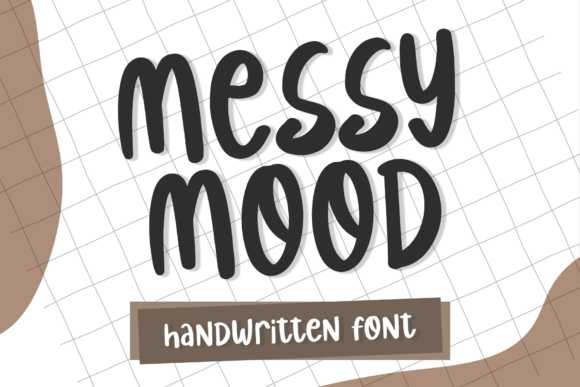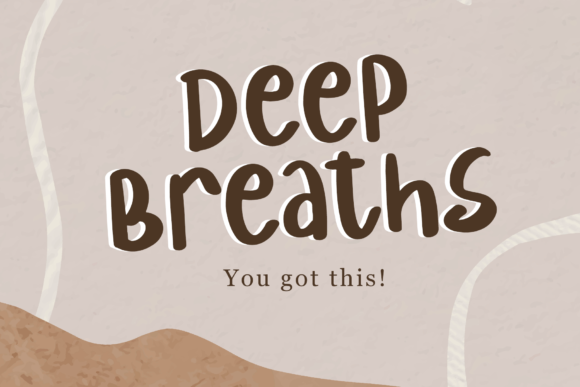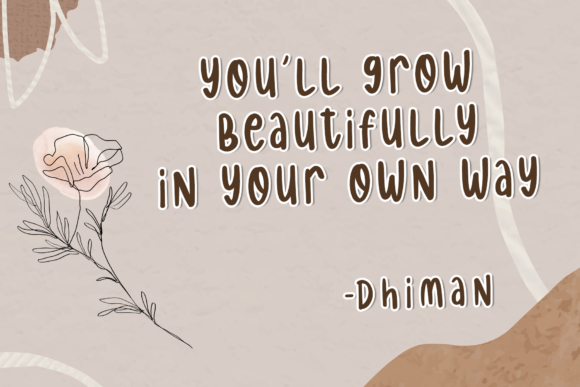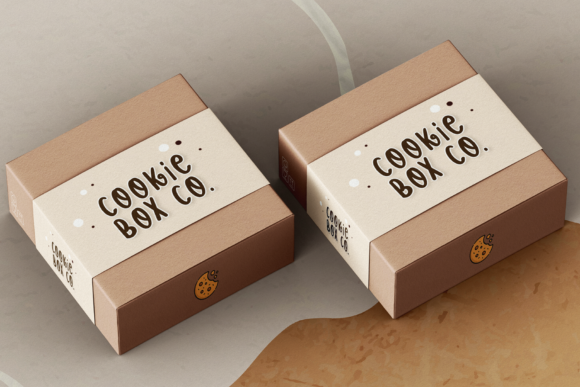
About Messy Mood Font
Messy Mood is a playful and fun handwritten font. This original look will appeal to a wide range of crafty ideas, from letterheads and titles, to stationery.